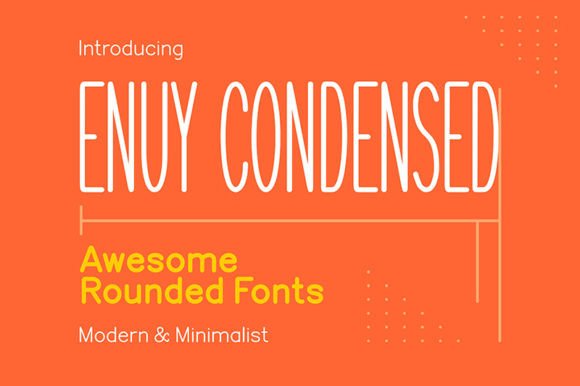
In a world saturated with digital noise and visual clutter, your designs need an edge to stand out, to captivate, to leave an indelible mark. Introducing Enuy Condensed Font, the ultimate weapon in your creative arsenal, a font family crafted to turn your ordinary designs into masterpieces of minimalism and modernity.
Enuy Condensed Font is not just a collection of letters and symbols; it's an expression of art, an embodiment of elegance, a testament to the power of simplicity. Its rounded sans serif characters exude a timeless charm, evoking a sense of nostalgia and sophistication. Whether you're designing book covers that speak to the soul, crafting magazine layouts that demand attention, or creating social media posts that ignite engagement, Enuy Condensed Font is your perfect companion.
With Enuy Condensed Font, you'll discover a world of creative possibilities. Its clean lines and minimalist aesthetic lend themselves effortlessly to a myriad of design projects. Imagine invitations that whisper elegance, posters that command attention, and branding materials that exude professionalism. The versatility of Enuy Condensed Font is truly remarkable, making it the go-to choice for designers seeking to make a lasting impact.
But Enuy Condensed Font is more than just a versatile tool; it's an experience. Its smooth curves and carefully crafted details create a visual symphony that dances across the screen. Every letter, every word, every sentence composed with Enuy Condensed Font carries a weight, a presence, an emotional resonance that transcends the boundaries of language. Your designs will come alive, captivating audiences with their understated beauty and undeniable allure.
In a world clamoring for attention, Enuy Condensed Font is the silent whisper that commands a room. It's the subtle elegance that sets you apart from the crowd. It's the minimalist masterpiece that transforms your designs into works of art. Embrace the power of Enuy Condensed Font and unleash your creativity like never before.